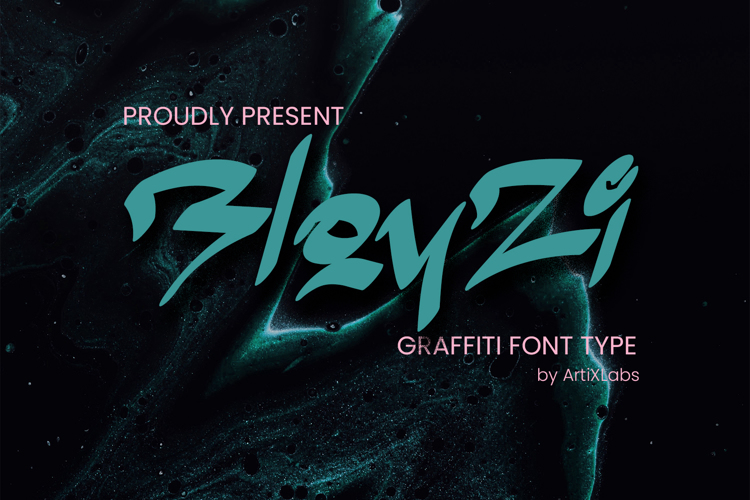
Bloy Zi Font
Graffiti Style
BloyZi is a modern graffiti brush font that blends smooth handwritten flow with bold street character. Its expressive strokes and energetic style make it perfect for urban branding, music visuals, skate culture designs, and digital content that demands attention.
Whether you're creating streetwear logos or eye-catching posters, BloyZi brings strong personality and artistic edge to your designs.